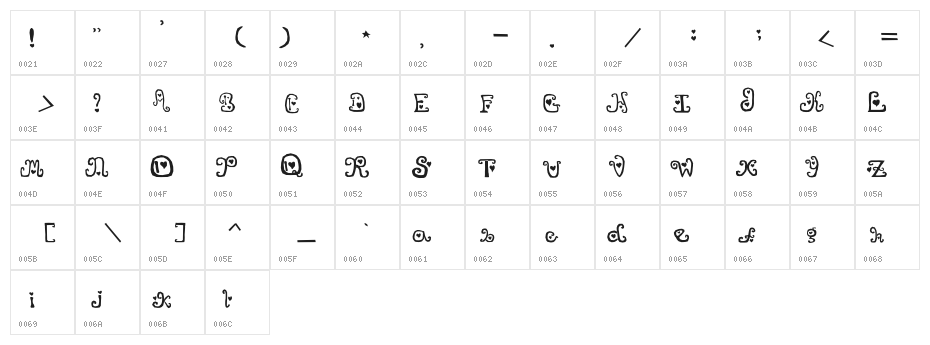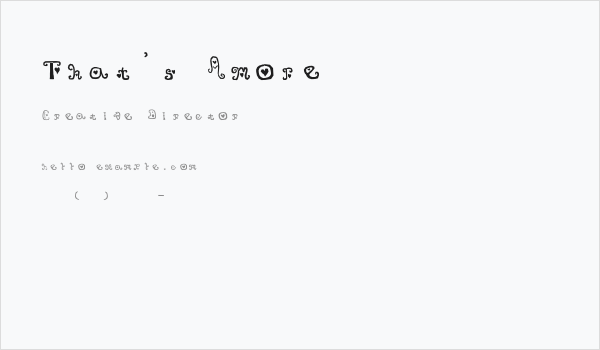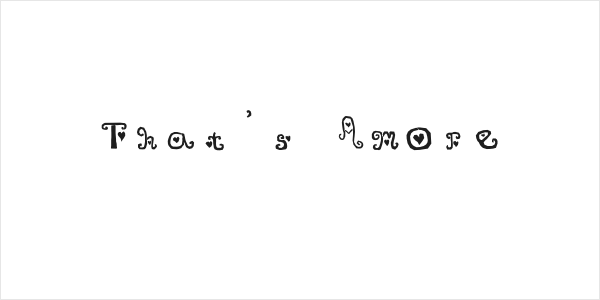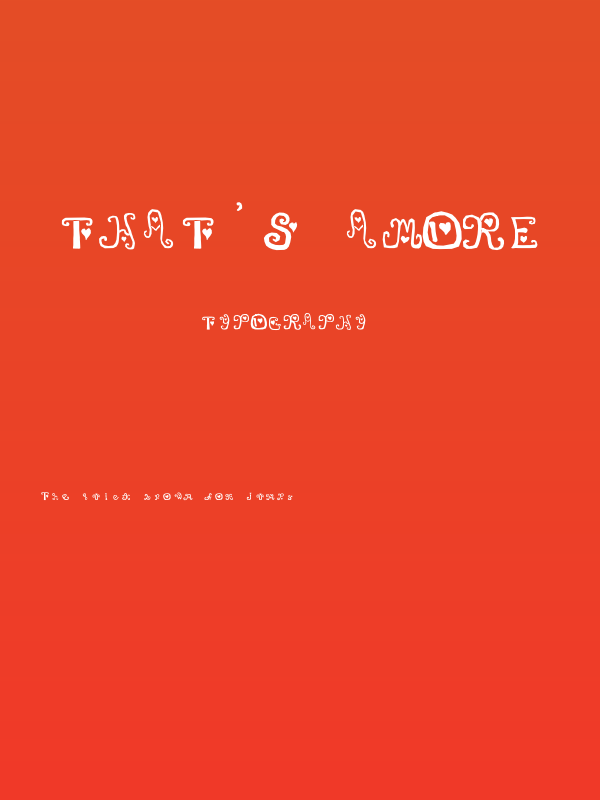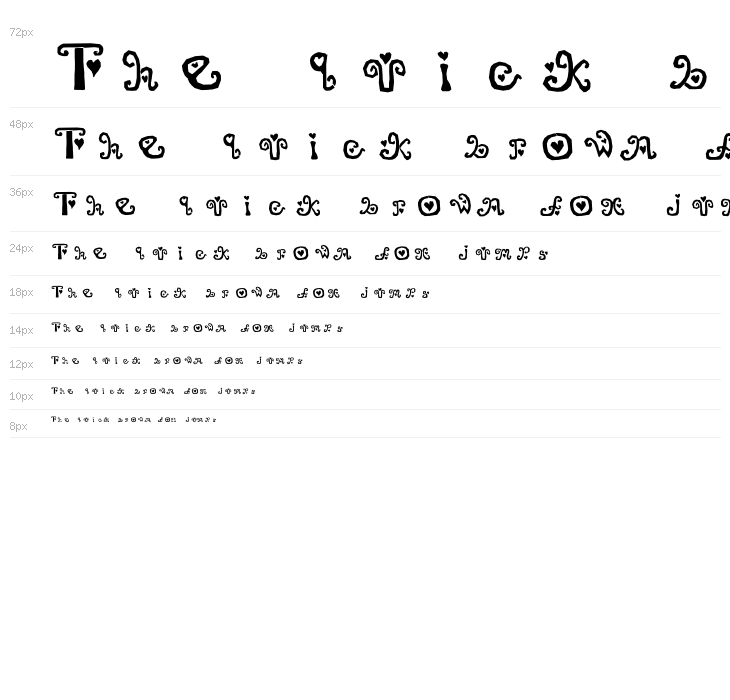
That's Amore Font
That's Amore Description
This font features a whimsical and playful design, characterized by its decorative and curly elements. Each letter is uniquely styled with flourishes and loops, giving it a lively and artistic appearance. The uppercase letters are bold and prominent, while the lowercase letters maintain a consistent decorative flair. The numbers and special characters follow the same ornate style, ensuring a cohesive look across all characters. This font is ideal for projects that require a touch of creativity and fun, such as invitations, posters, and playful branding.
| Proposed Projects | Ideal for invitations, playful branding, posters, and creative designs. |